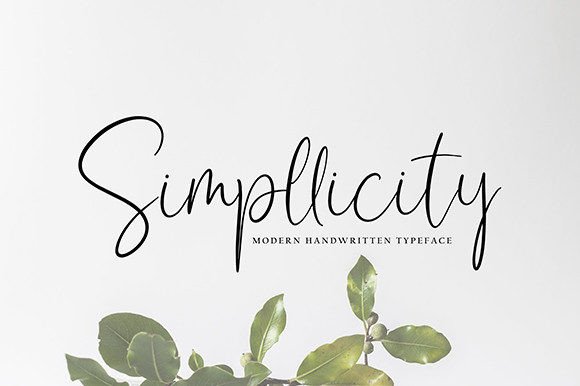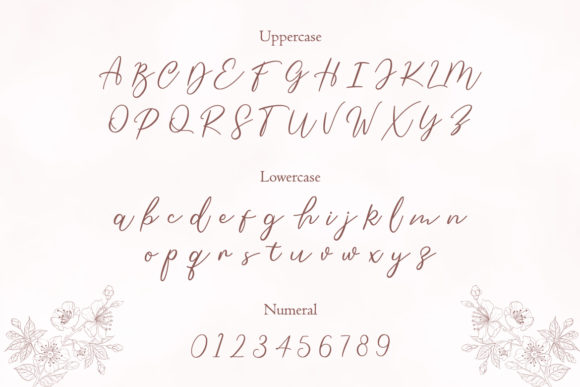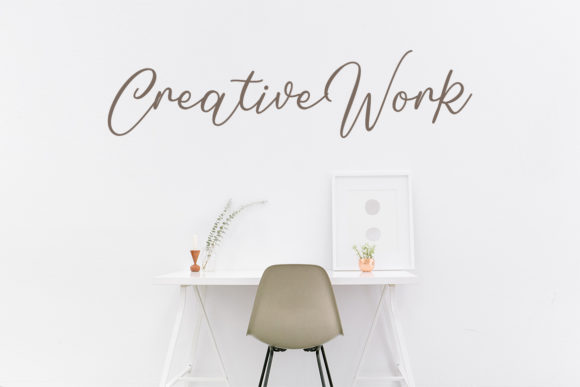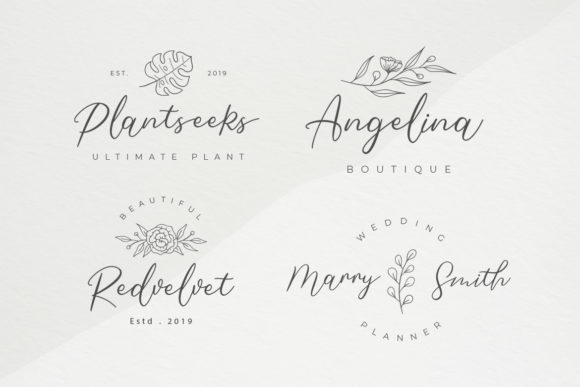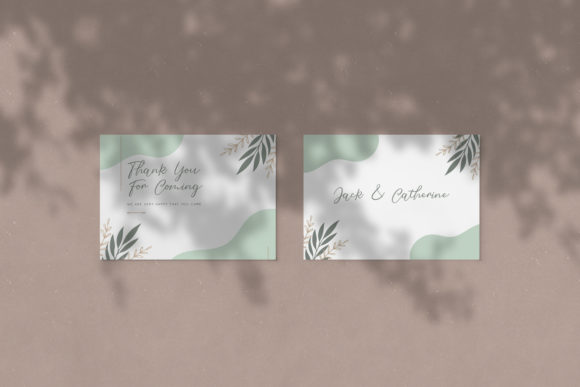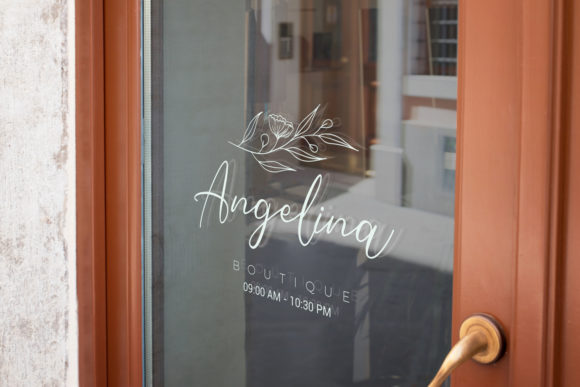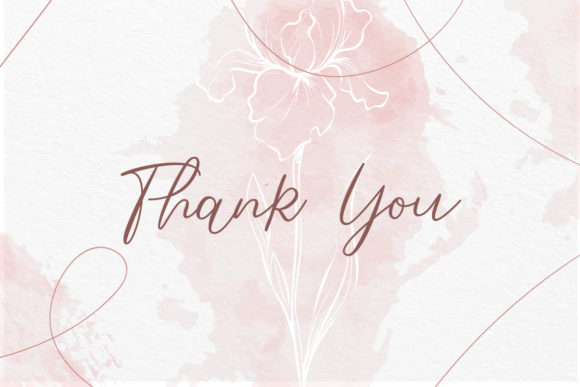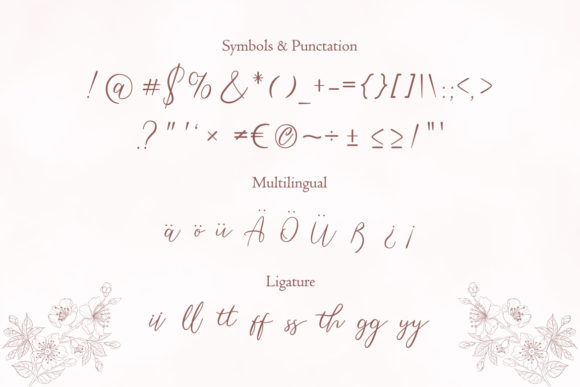
Helsinky Font
About Helsinky Font
Helsinky is a beautiful handwritten font. It has a natural style with a great readability. It looks perfect on adding a natural touch to your luxurious designs.